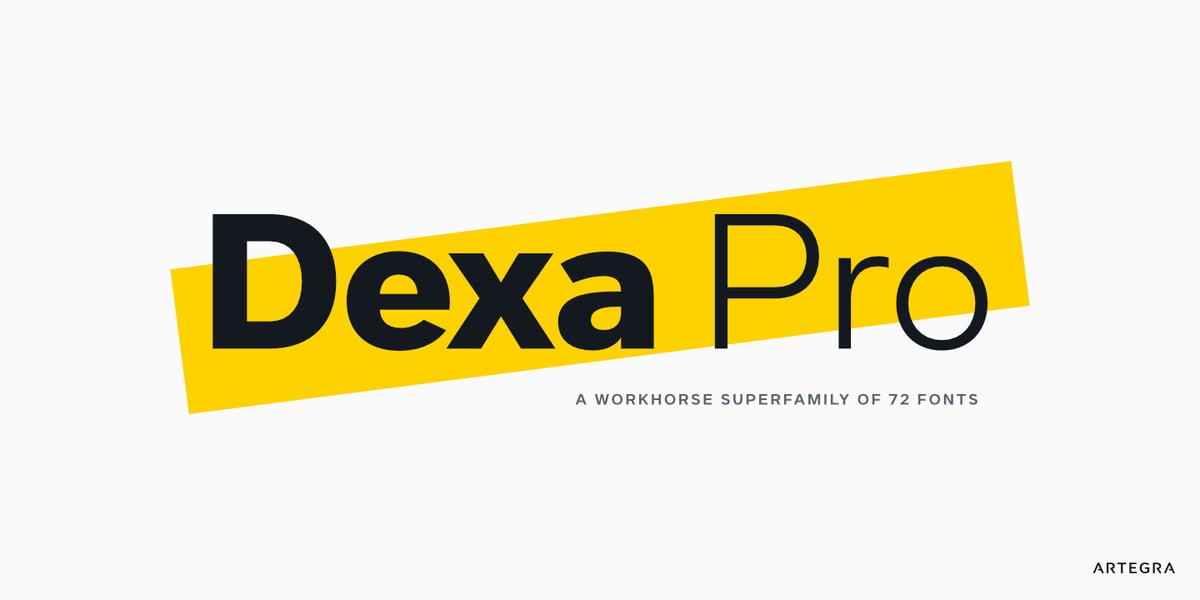
This one has a strange looking G that I cannot locate on any font site. Any ideas? Thanks in advance. Johnny
Looks like Dexa Pro Expanded Bold
This almost looks like Termina Bold Font.